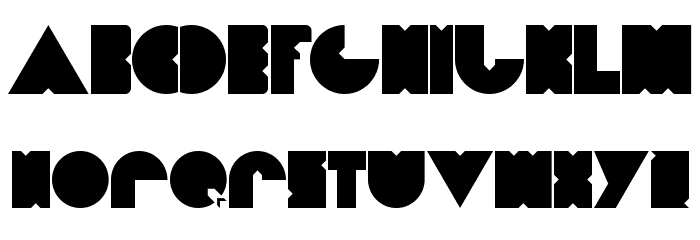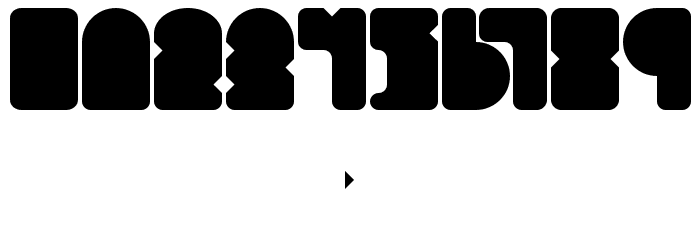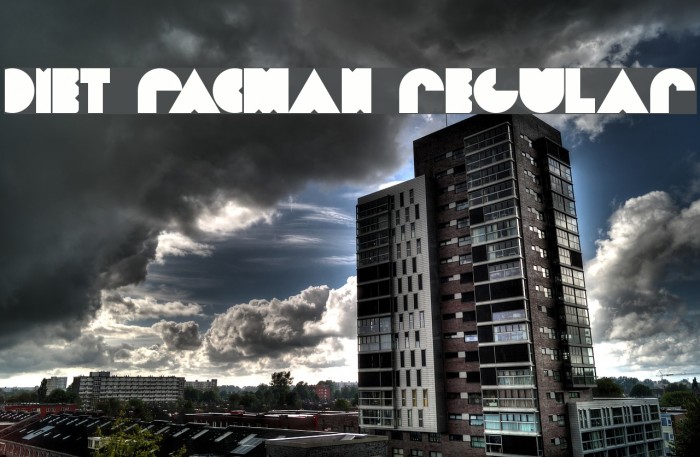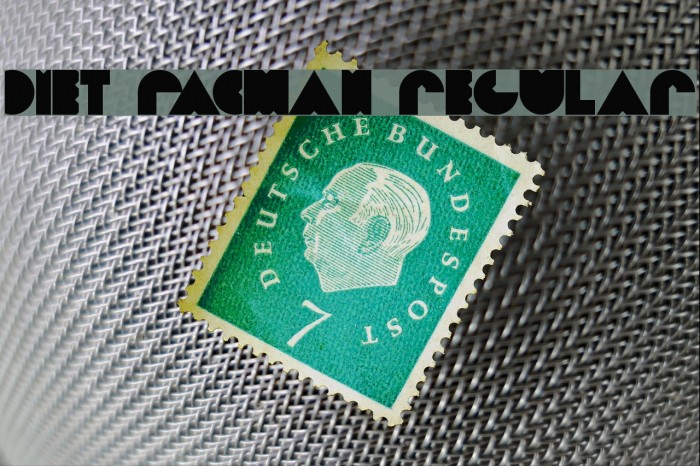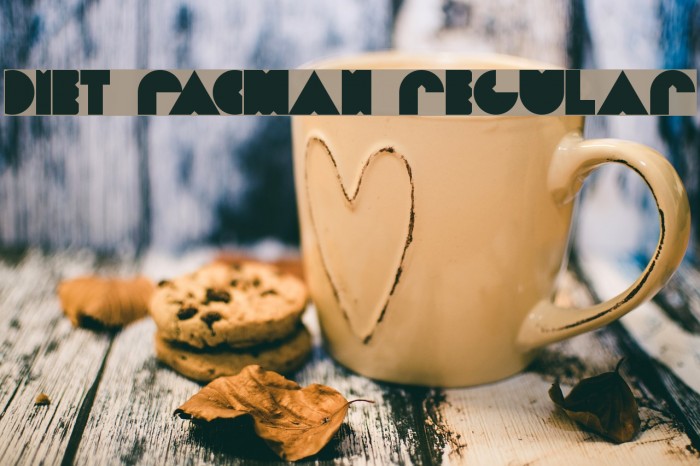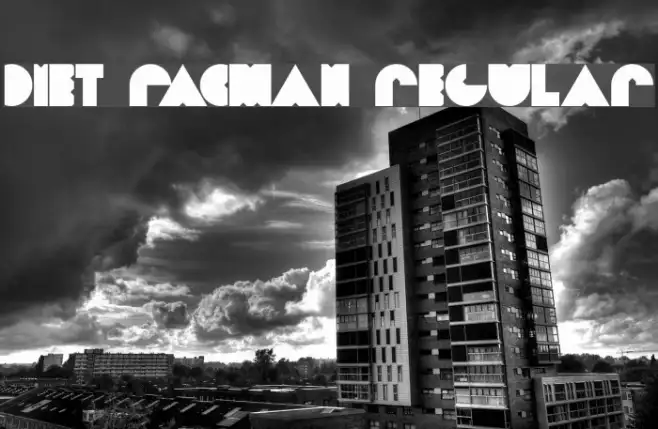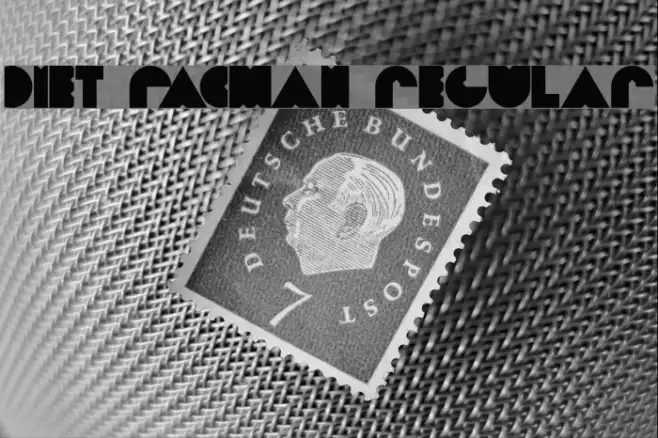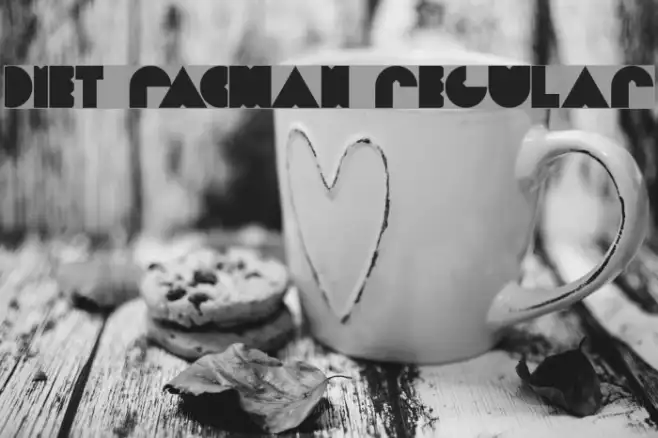
Diet PacMan Regular Font
This font features a bold and playful design, characterized by its geometric shapes and solid, block-like appearance. The letters are constructed with a combination of straight lines and curves, creating a unique and eye-catching style. The uppercase and lowercase letters maintain a consistent weight, contributing to a cohesive look. The numbers and special characters follow the same design principles, ensuring uniformity across all glyphs. This font's distinct style makes it suitable for projects that require a fun and engaging visual impact.
A bold, geometric font with a playful and block-like design.
- Proposed Projects: Ideal for video game graphics, children's book covers, posters, and branding that requires a fun and bold aesthetic.